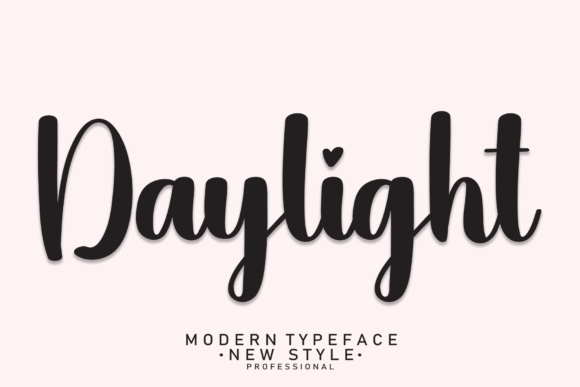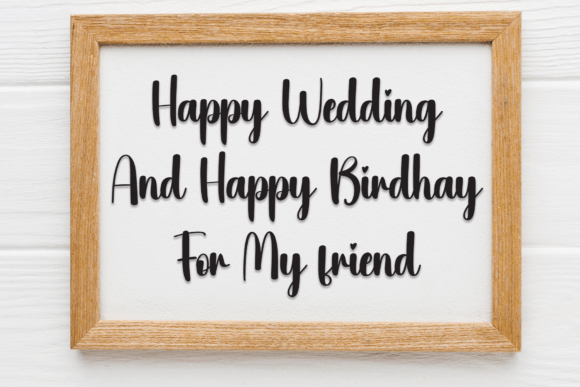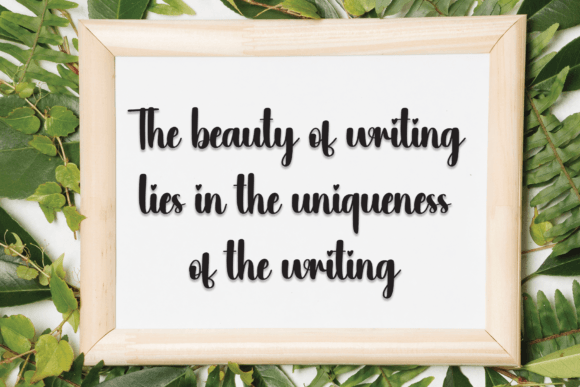
The Daylight font features beautifully crafted handwritten letters that bring elegance and warmth to a variety of creative projects. Its latest style is ideal for wall displays, wedding invitations, social media post logos, advertisements, product packaging, product designs, labels, photography, watermarks, invitations, stationery, and much more.
With smooth, flowing strokes, the Daylight font adds a personal, handcrafted feel to any design. It balances style and readability, making it suitable for both large headlines and smaller text elements. This ensures your projects appear professional yet inviting.
Whether you are designing romantic wedding invitations or modern branding materials, the Daylight font offers versatility and sophistication. It enhances logos, packaging, and promotional designs with a unique handwritten touch.
In conclusion, the Daylightfont is a beautiful and script perfect for weddings, branding, packaging, social media, and many other creative applications. Download it today and elevate your designs with charm and.